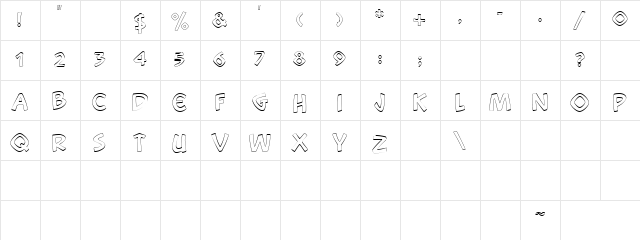
Snootchie Bootchies Outline Regular
Design Context for Snootchie Bootchies Outline Typeface
Snootchie Bootchies Outline is built around its visual character rather than neutral utility — its distinctive forms are designed to make an impression at display sizes.
Font Pairing: Pair with a clean neutral sans-serif for body copy to let Snootchie Bootchies Outline's character lead without overwhelming the composition.
Pro Tip: Treat Snootchie Bootchies Outline as the centrepiece of your typographic hierarchy. One strong heading set in a decorative face can carry an entire layout.